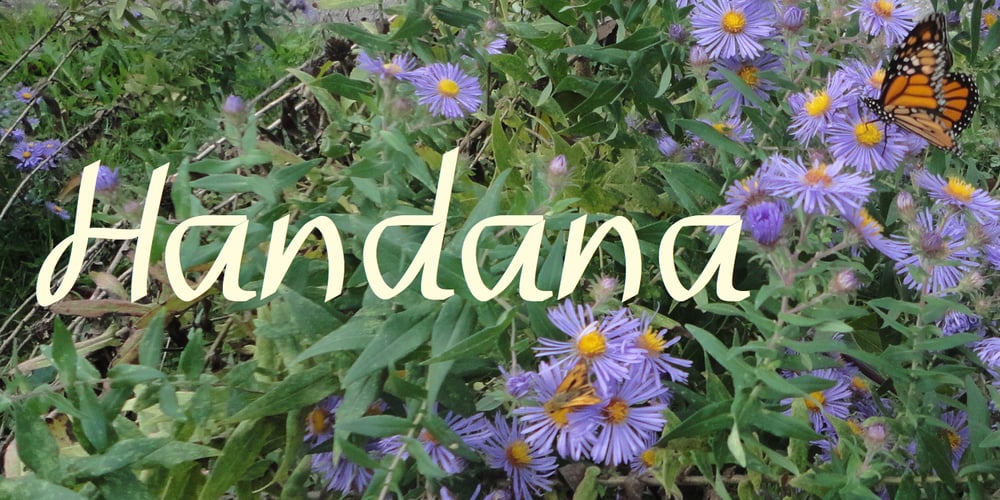
Handana Font Family was designed by Robert Schenk and published by Ingrimayne Type. Handana contains 4 styles and family package options. Handana is an informal face with a simple but distinctive calligraphic look in four weights: light, plain, medium, and bold.